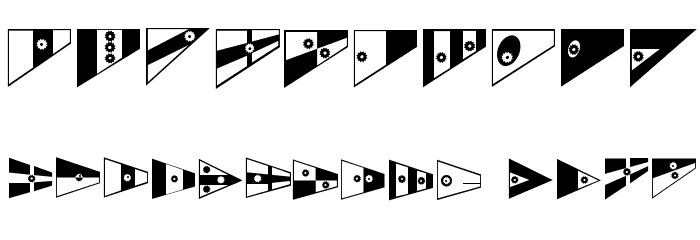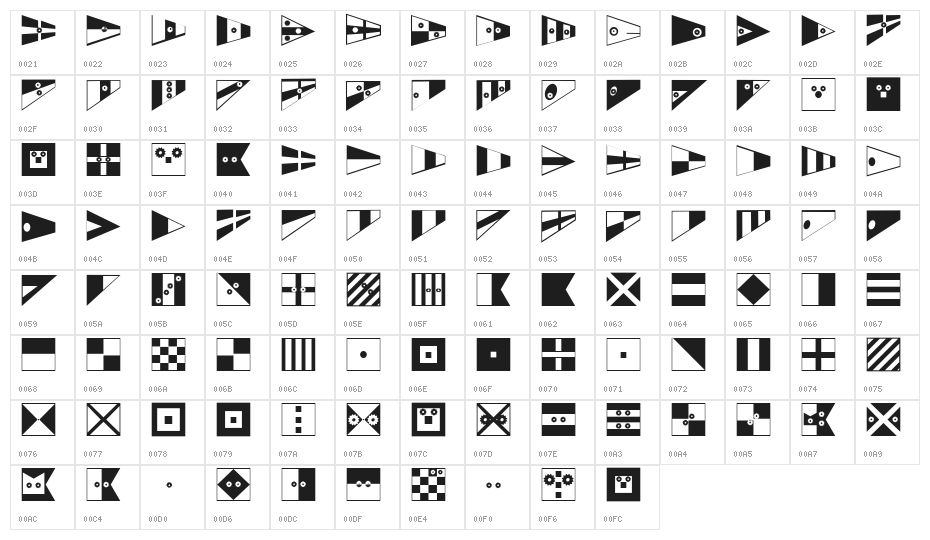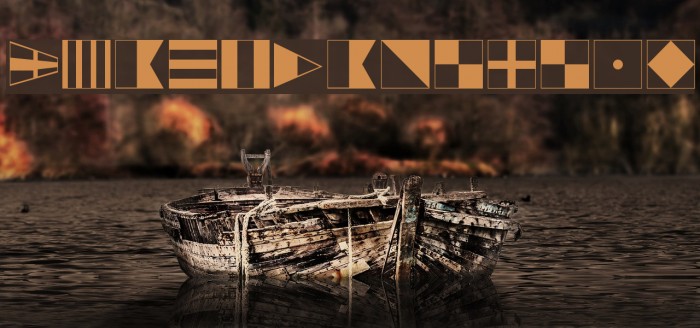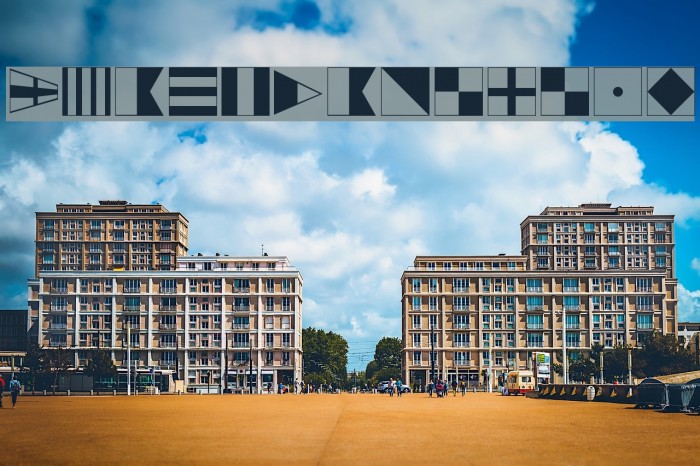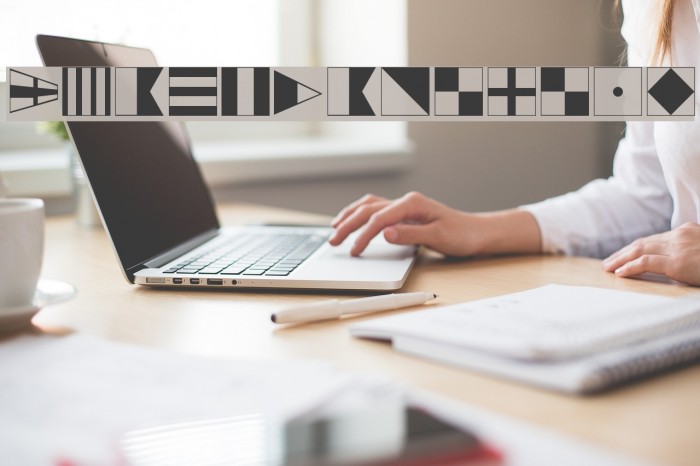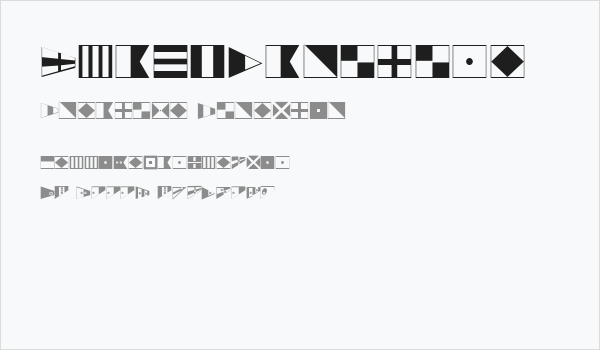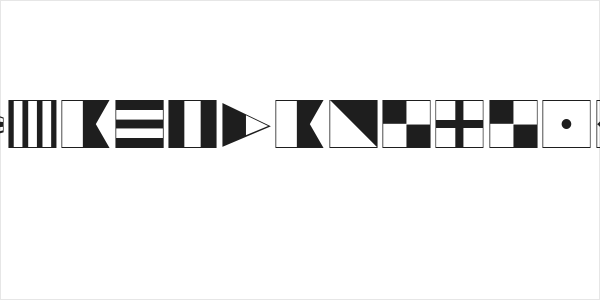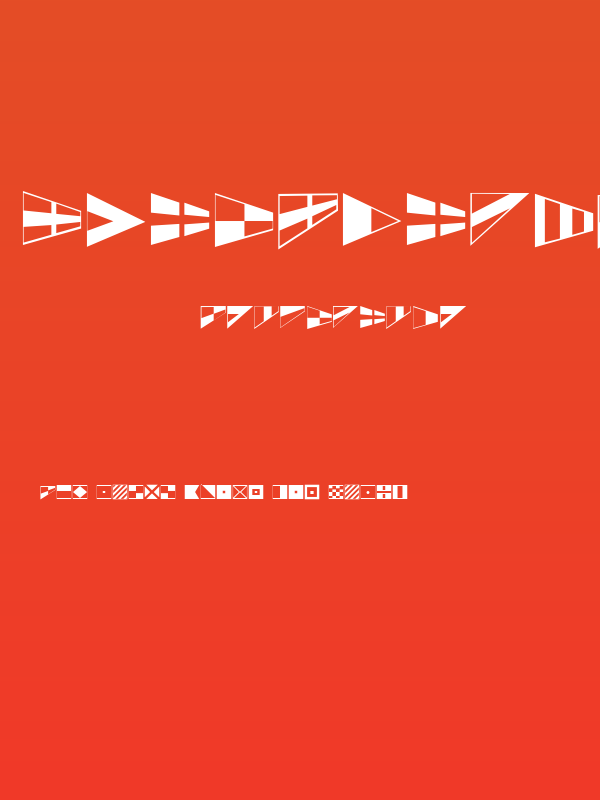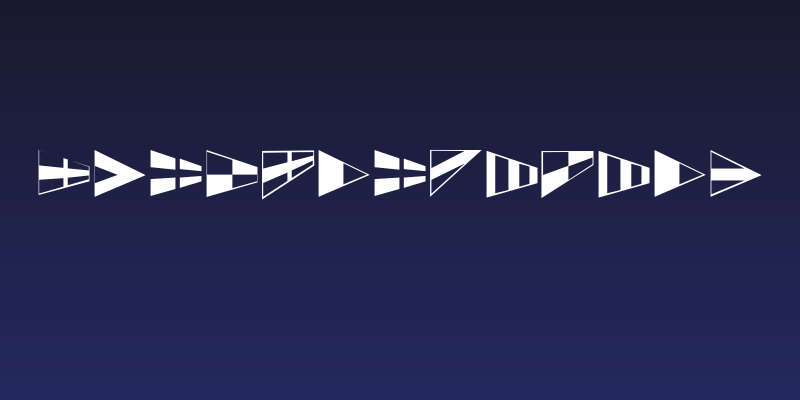
FlagsMaritime Font
FlagsMaritime Description
A geometric, high-contrast symbol font inspired by international maritime signal flags, featuring a variety of triangular and rectangular flag shapes with bold black and white patterns, dots, and stripes. Each character is represented by a unique flag design, maintaining strong visual distinction and clarity.
| Overall Style | Decorative, Nautical, Geometric |
| Use Case | Logos, Posters, Themed graphics, Educational charts, Signage |
| Proposed Projects | Nautical-themed designs, educational materials, signage, posters, branding for maritime businesses, decorative elements. |